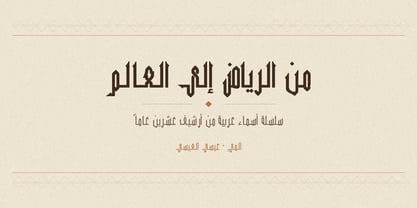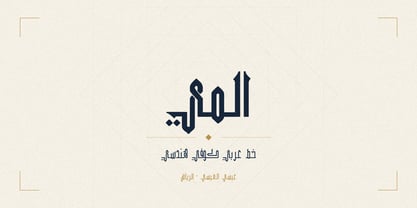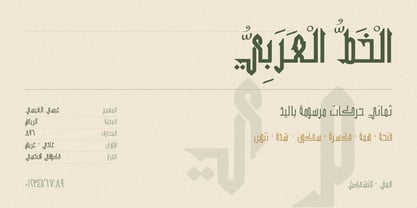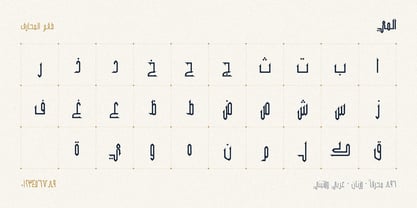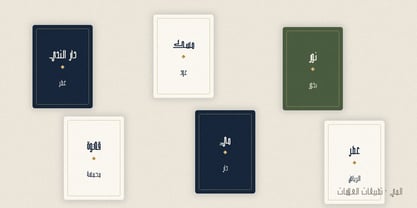
AlMai
by Eisa AlEisa
The AlMai Font Family was designed by Eisa Aleisa and published by Eisa AlEisa. AlMai contains 2 styles and family package options. More about this family
AlMai is a geometric Kufi display typeface, and the second release in a growing library of Arabic display faces named after Arabic women's names , each drawn from the designer's twenty-year archive of lettering work.
AlMai pairs the discipline of geometric construction with distinctly calligraphic gestures: leaf-shaped apexes on the ascenders, open and closed counters that follow classical Arabic construction (the ʿayn opens in its initial form and closes mid-word), and a dead-level connecting baseline engineered so every joint aligns precisely.
AlMai is a display face, and proudly so. It is drawn for headlines, wordmarks, posters, packaging and titling at large sizes where its thin monoline and sharp detailing come alive. It is not intended for text settings.
The character set covers the full Arabic alphabet with four-form contextual shaping, all eight vowel marks with engineered mark positioning for fully vocalised display setting, the complete hamza set, teh marbuta and alef maqsura, lam-alef ligatures, Arabic-Indic numerals, Arabic punctuation. A compact humanist Latin is included in a supporting role for bilingual captions and credits.
Eisa AlEisa is an independent type foundry from Riyadh, Saudi Arabia , the studio of artist and type designer Eisa AlEisa. Most releases begins as an ink drawing on paper: letterforms shaped by hand long before they become digital curves, which gives the work a warmth and rhythm rooted in the visual culture of the Gulf. The foundry focuses on original Arabic type , contemporary designs with real personality, careful joins, deep bowls, and stems cut with a single confident chamfer. Each typeface is drawn to hold its character at display sizes and stay readable in text. The last release, Aljawhara, takes its name from the Arabic word for "the jewel."